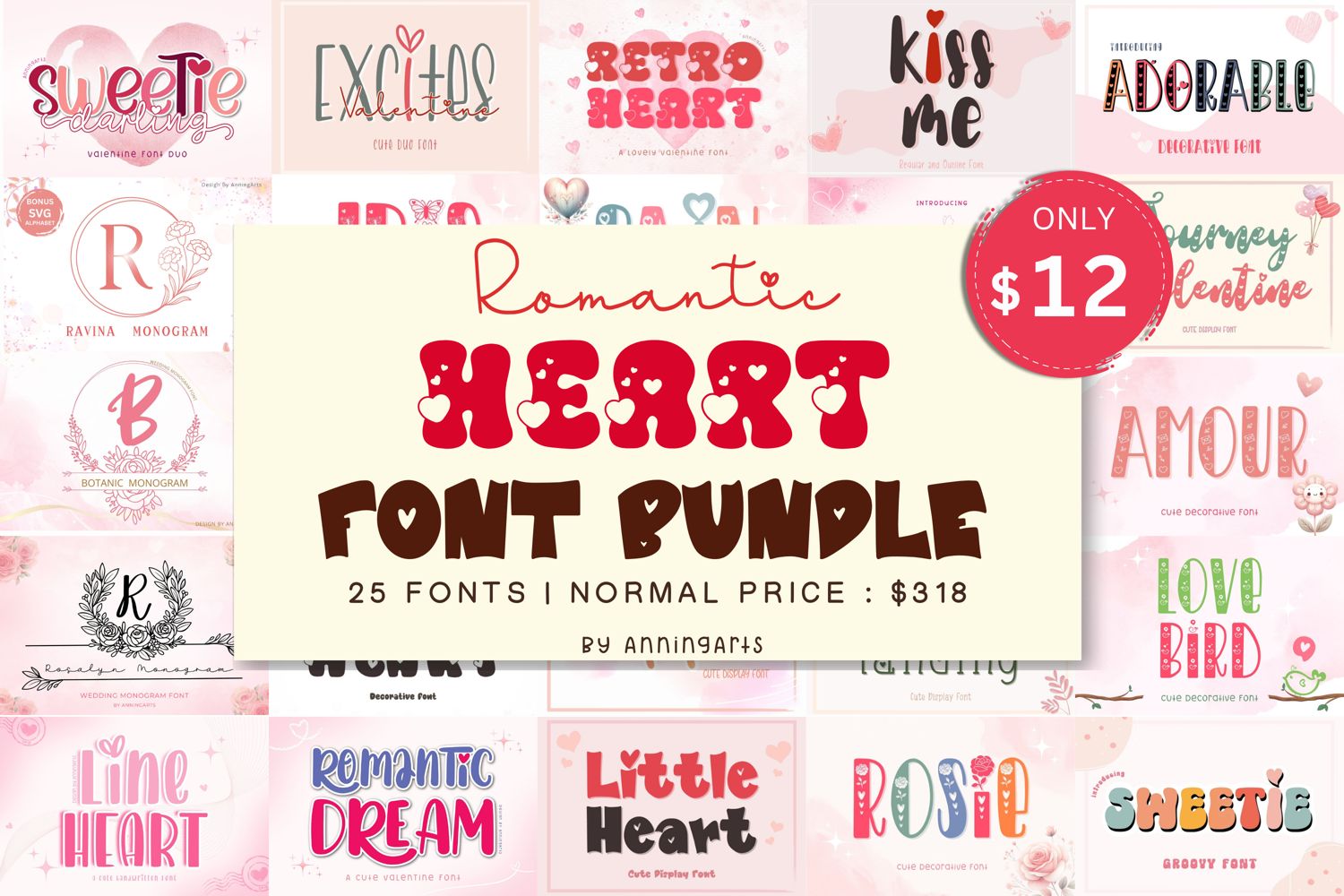
25 Romantic Heart Font Bundle
❤️ Romantic Heart Font Bundle - 25 Fonts for Valentine & Beyond!
Spread the love in your designs with the Romantic Heart Font Bundle. This massive collection features 25 unique fonts specifically curated for Valentine’s Day, weddings, and all things sweet. From groovy retro vibes to elegant monograms, this bundle has everything you need to create heartfelt projects.
• Ravina Monogram font
• Miniheart Font
• Excites Valentine Font Duo
• Sweetie Darling Font Duo
• Wedding Font
• Romantic Dream Font
• Iris Font
• Little Heart Font
• Florisia Monogram Font
• Botanic Monogram Font
• Rosalyn Monogram Font
• Rosique Font
• Line Heart Font
• Retro Heart Font
• Fain Font
• Rosie Font
• Amour Font
• Lovebird Font
• Hippie Font
• Sweetie Font
• Adorable Font
• Cupid Font
• Heart Landing Font
• Kiss Me Font
• Journey Valentine Font